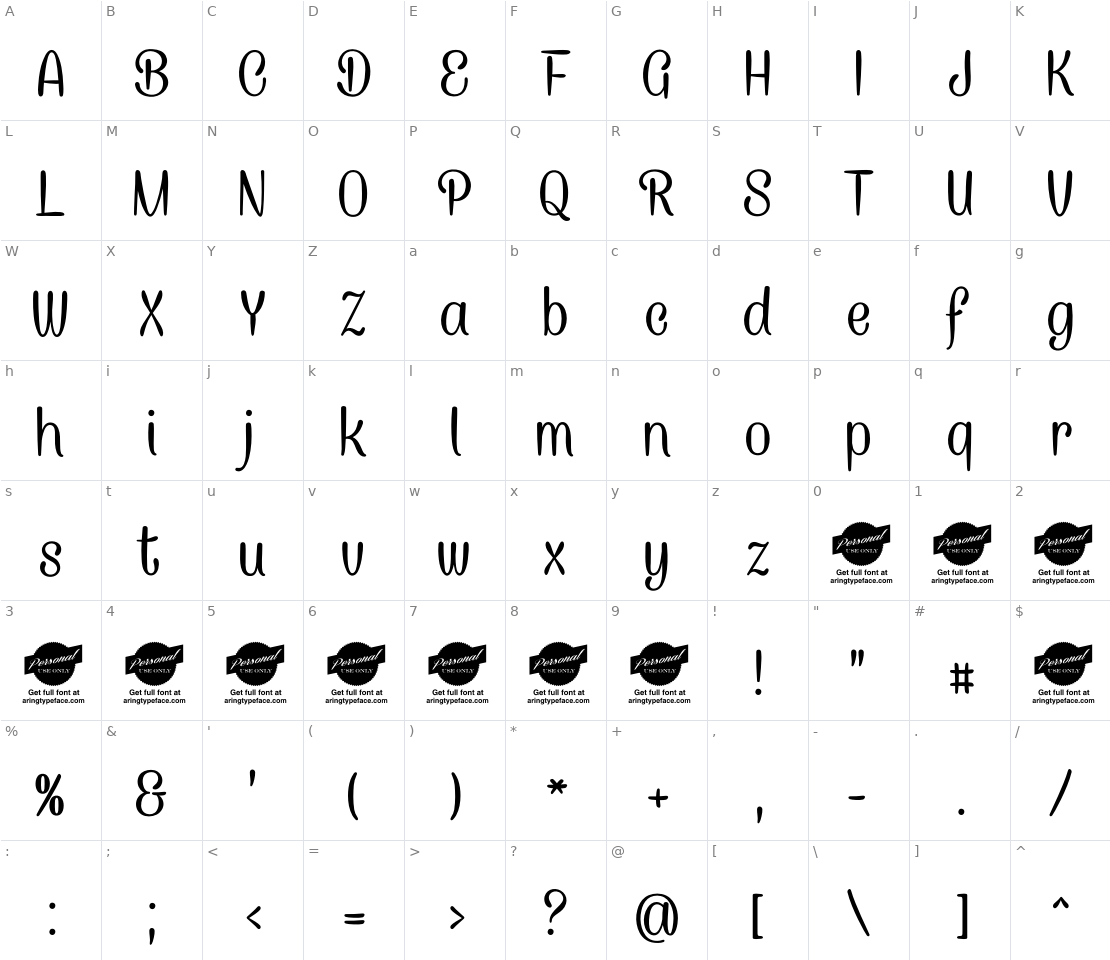
Caneletter Sans
Caneletter Sans is a bouncy, condensed handwritten face from Måns Grebäck with letterforms that bob and weave along the baseline in a way that feels genuinely playful. The strokes are casual but controlled, giving it a friendly, approachable warmth that works well for headlines, packaging, and branding where you want something personal without looking sloppy. Grebäck is known for his polished script and handlettered work, and this one sits comfortably in that tradition while keeping things looser and more lighthearted.